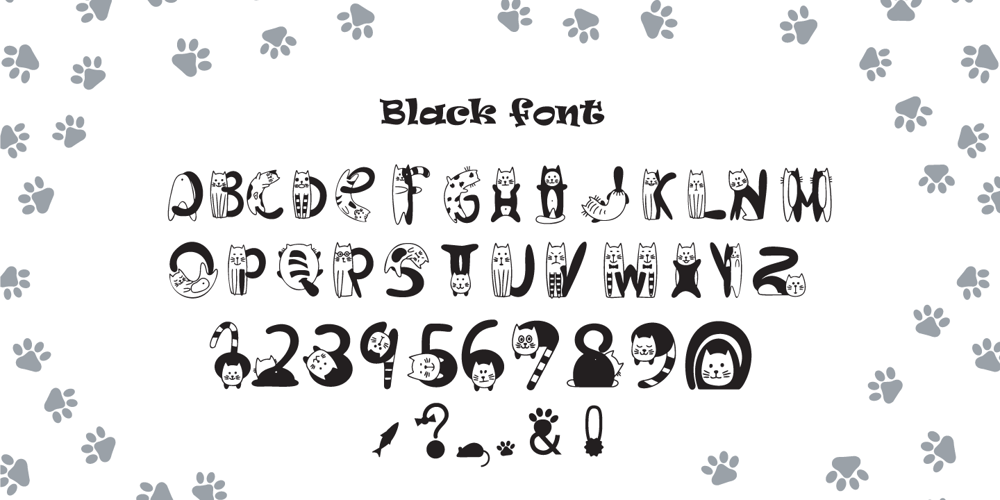
Catsme Font Family was designed by Ksenia Kuznetsova and published by Peliken. Catsme contains 3 styles and family package options. Cats OTF color font. Creative set of characters, kittens pictured in a variety of poses. You can use this font for design logos, quotes prints on t-shirts and other. OpenType-SVG Font was designed with Fontself Maker in Illustrator CC. Contains only uppercase letters and digits. WARNING Color fonts are pretty new technology – they currently show up in Photoshop CC 2017+, Illustrator CC 2018 and some Mac apps. Learn more about color font support on third-party apps here: https://www.colorfonts.wtf/